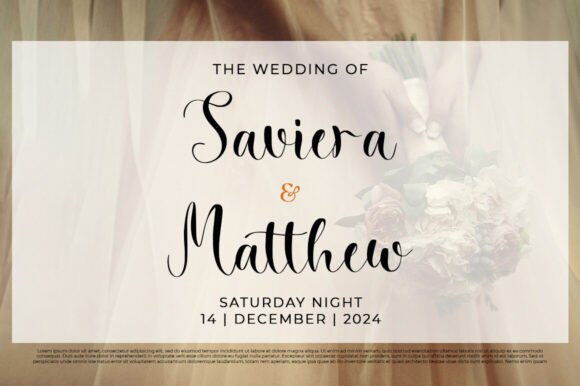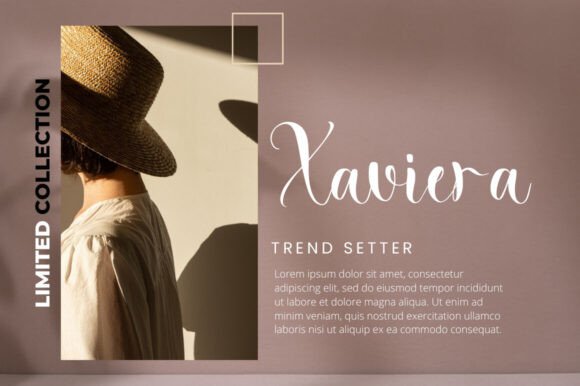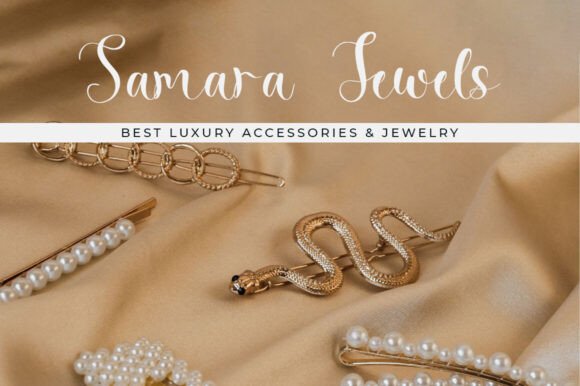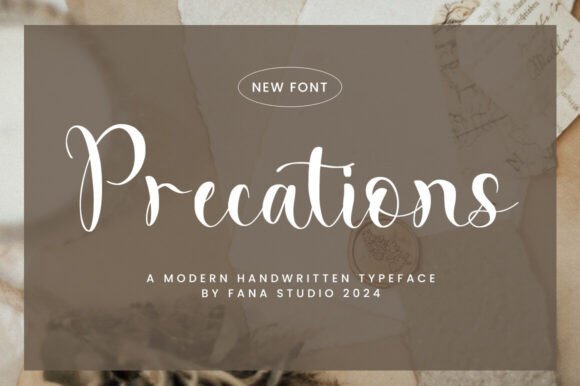
Introduction to Precations Font
Precations is a stylish handwritten script font exuding elegance and charm.
Its fluid strokes and natural flow create a captivating, sophisticated look Perfect for adding a personal touch to invitations, branding, or social media, this font brings a sense of warmth and creativity to any design.
Precations Font offers exceptional quality and versatility, making it a valuable addition to your design toolkit. Whether you’re creating for personal projects or commercial use, Precations Font delivers professional results.